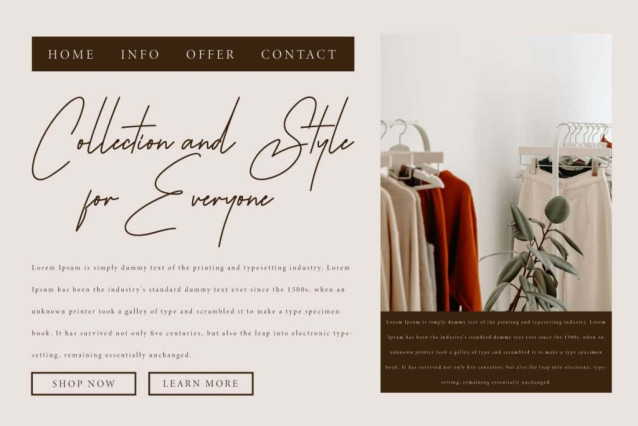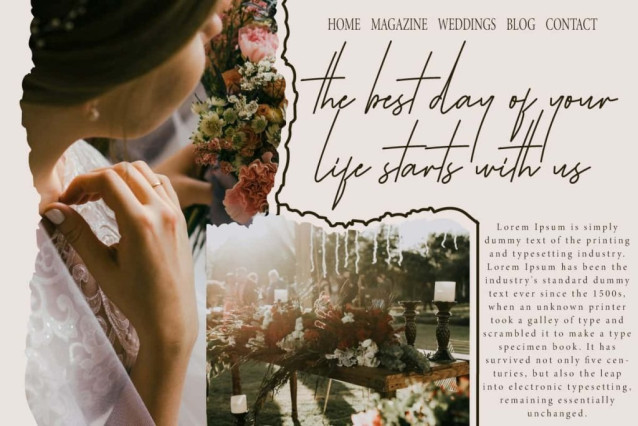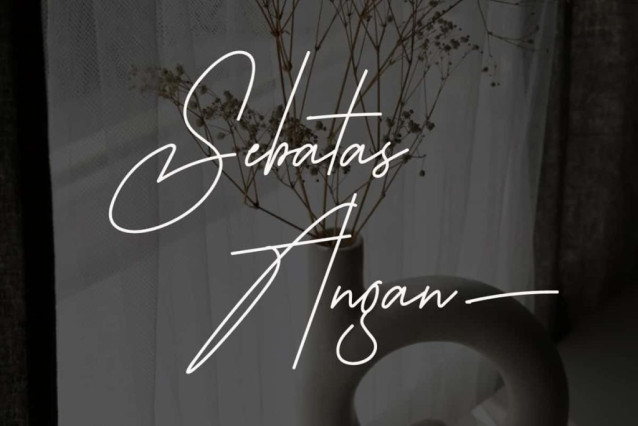
Sebatas Angan Font
Sebatas Angan Font is a beautiful signature script that also consists of additional swashes that add to its charm, a fashionable and sophisticated signature style with elegant curves of ink made to flow naturally in its own style. Perfect for banners, blogs, brochure, embossed design, greeting cards, headers, invitation, logos, packaging, poster, screen printing, sign board, stationery, title, watermarks, website, etc.
Sebatas Angan Font includes a complete set of Basic Uppercase and Lowercase Characters, Numbers, Punctuation, Symbols, and Swash. It presents a smooth and stylish casual monoline handwriting. This elegant and classy look is suitable for more stunning projects, as it is supported by using a modern handwriting taste. It will be perfectly used for beauty product, fashion, florist, graphic design, wedding planner, etc.